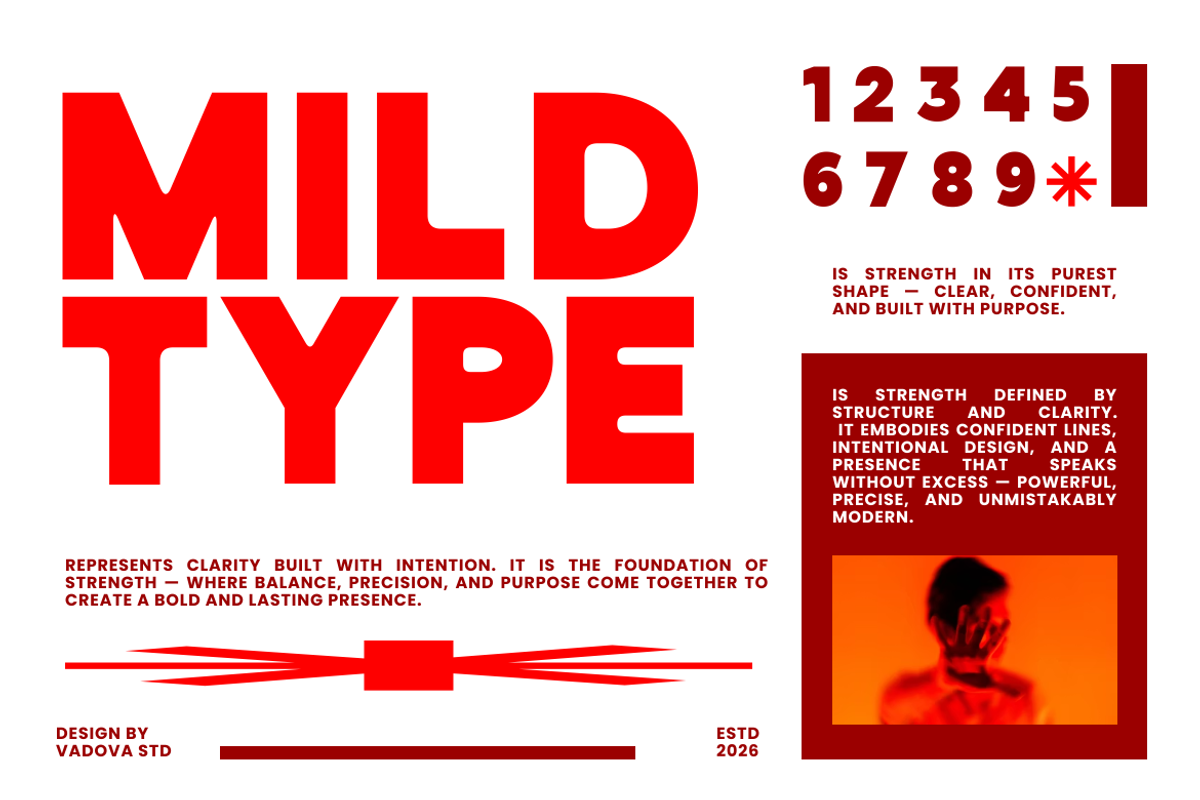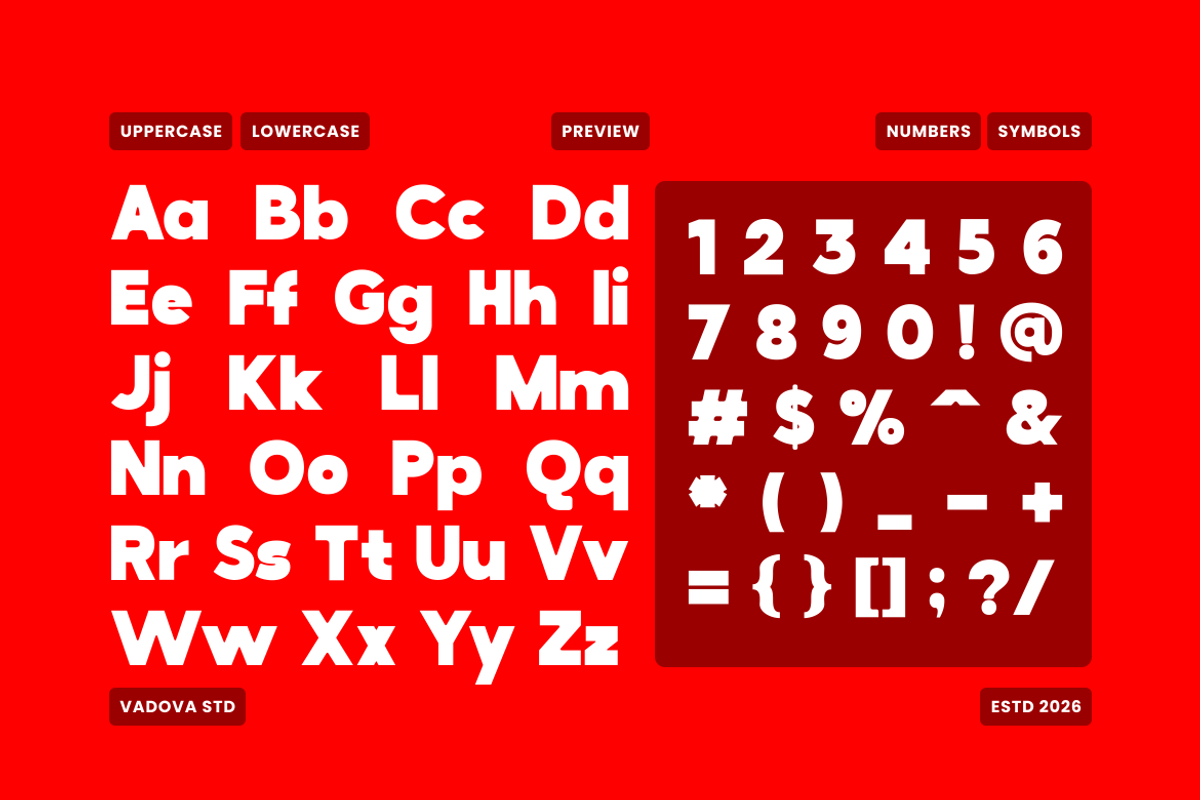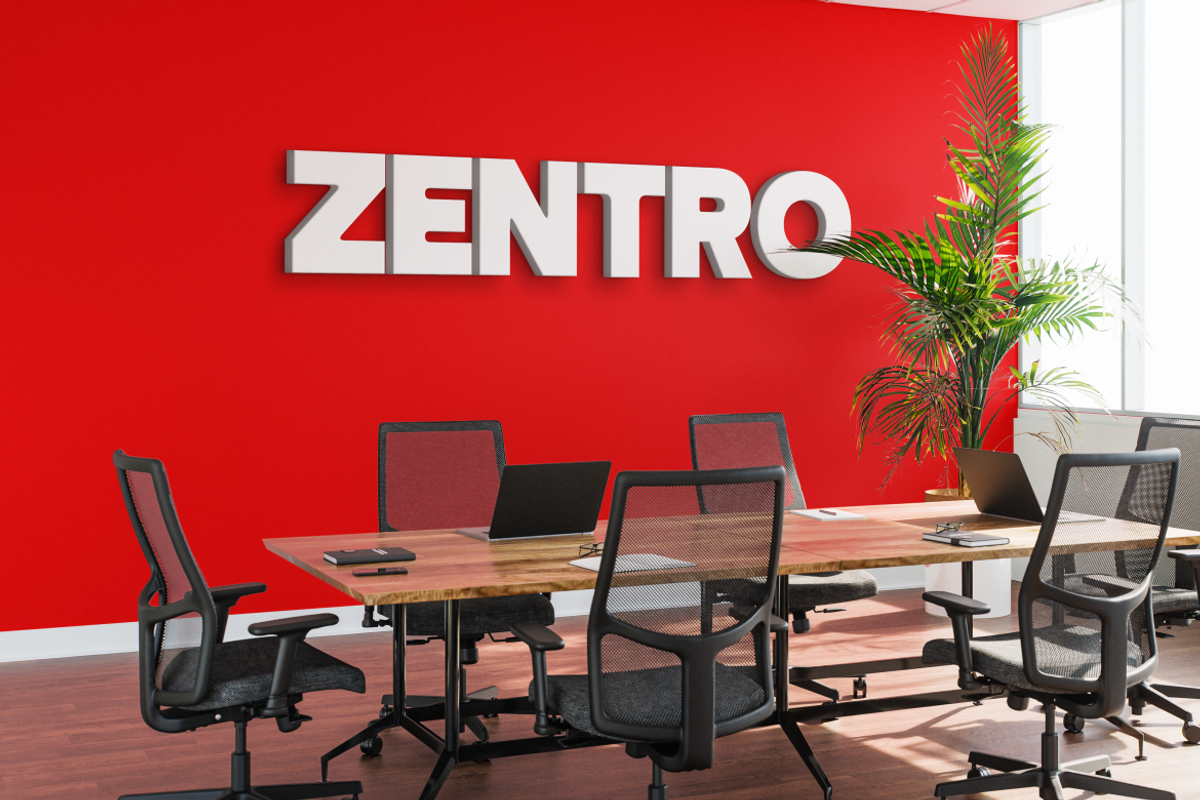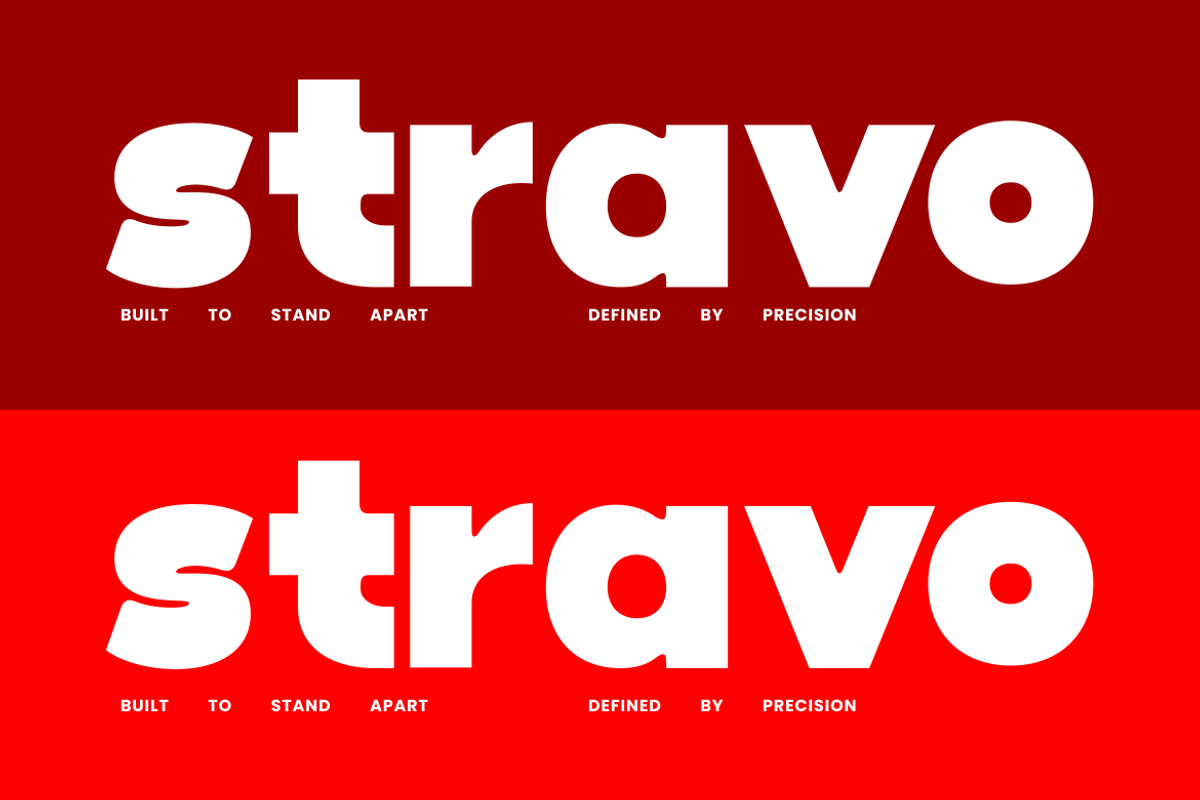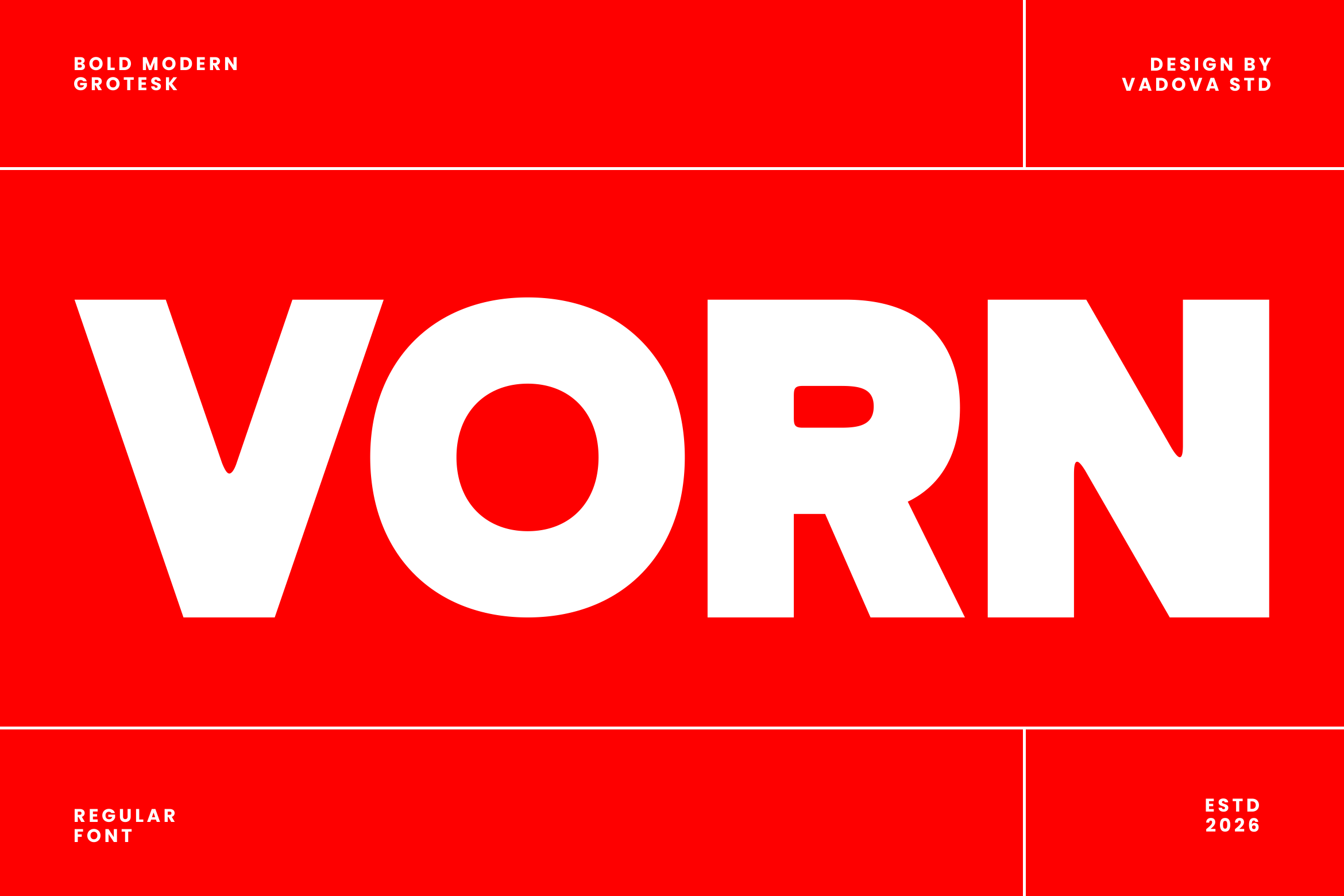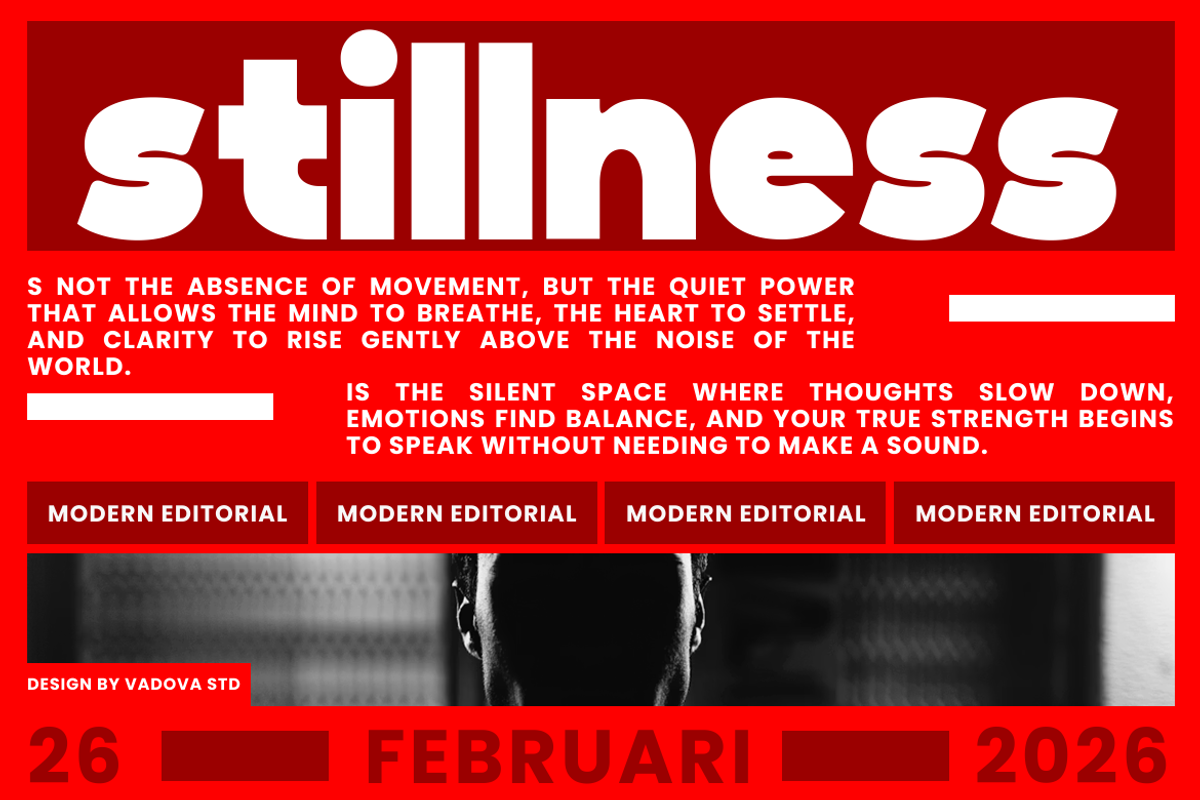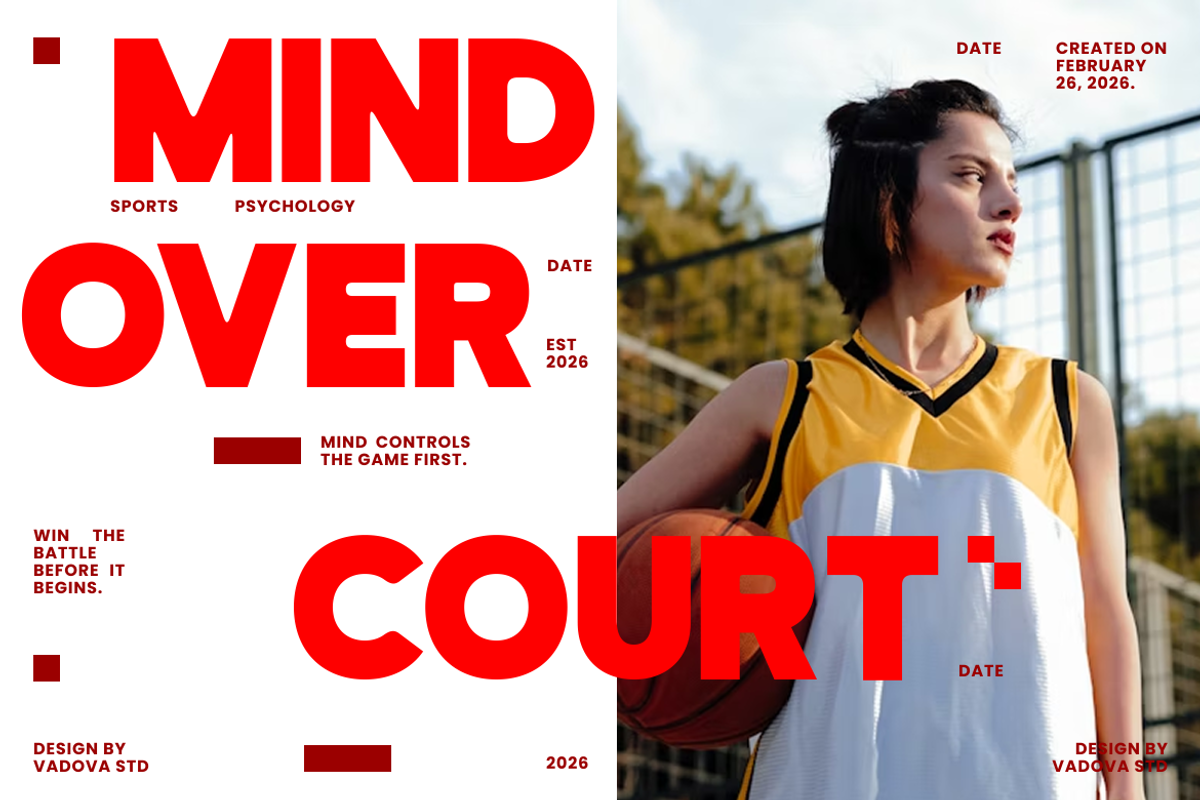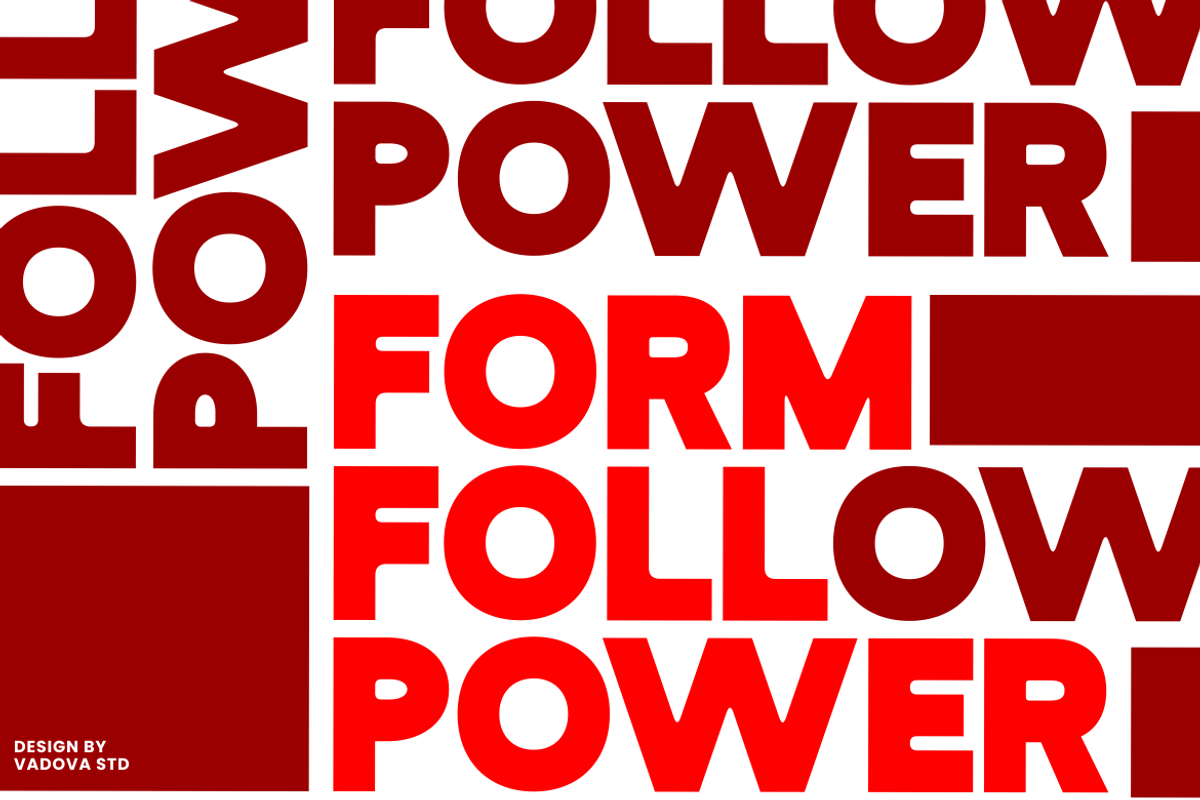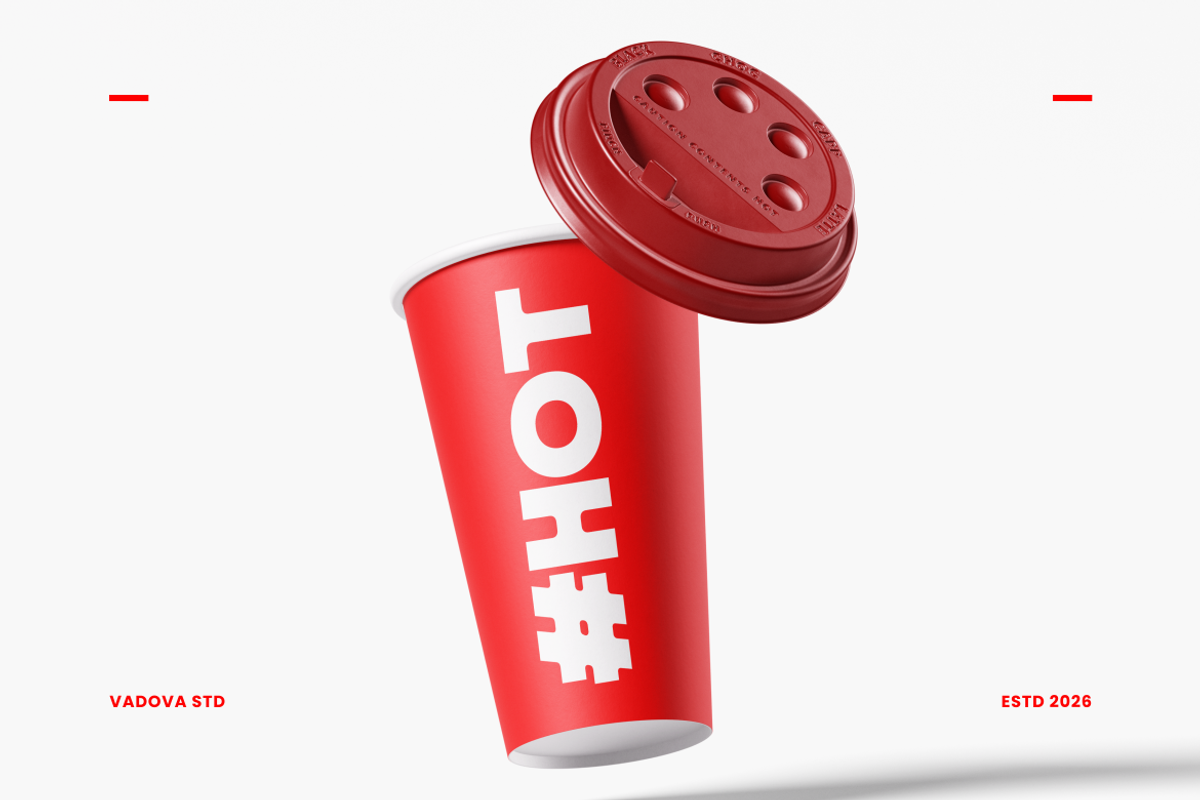
Vorn Bold Modern Grotesk Font
Vorn is a bold modern grotesk display font designed with strong geometric structure and confident letterforms. The typeface features thick strokes, compact proportions, and clean edges that create a powerful and contemporary visual presence. Its heavy weight and balanced spacing make it highly legible for impactful headlines and modern branding.The font package includes uppercase and lowercase characters, numbers, punctuation, and multilingual support.
This font is highly relevant for modern branding and visual communication where strong typography is essential. Its bold grotesk structure works well for headlines, posters, editorial layouts, and advertising graphics. The clean geometric forms allow it to perform effectively in corporate identities, technology branding, packaging, and modern marketing visuals that require clarity, strength, and contemporary style.
- Bold grotesk structure with strong geometric letterforms
- Thick strokes and solid shapes for powerful headline impact
- Clean edges and balanced proportions for modern clarity
- Compact spacing that enhances bold visual presence
- Optimized for striking display typography and branding us
- Bold brand identity systems that require strong visual impact
- Poster designs, advertising headlines, and promotional graphics
- Editorial covers and magazine titles with modern typography
- Logo design and packaging that demand powerful typography
- Social media graphics and marketing visuals that need bold attention